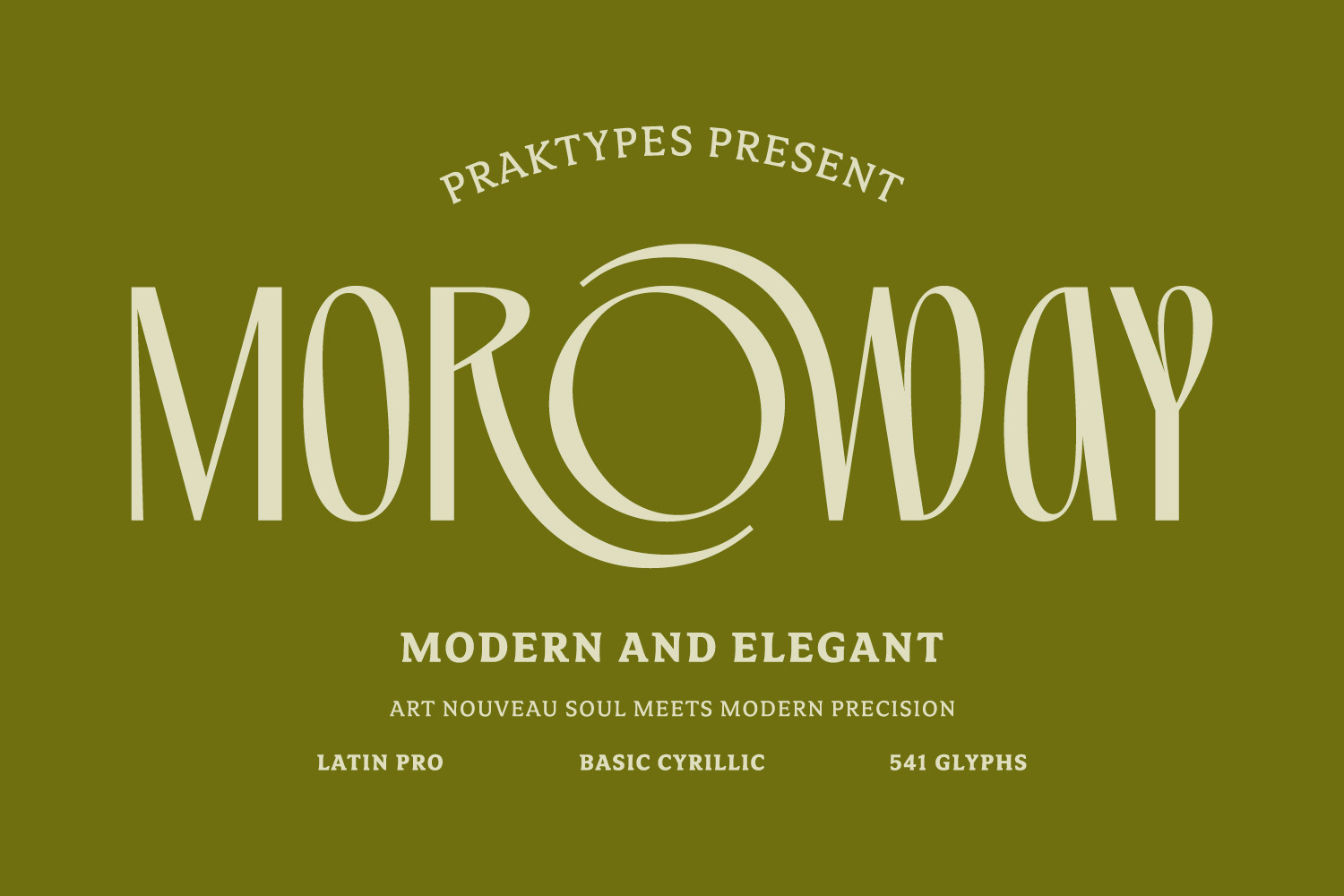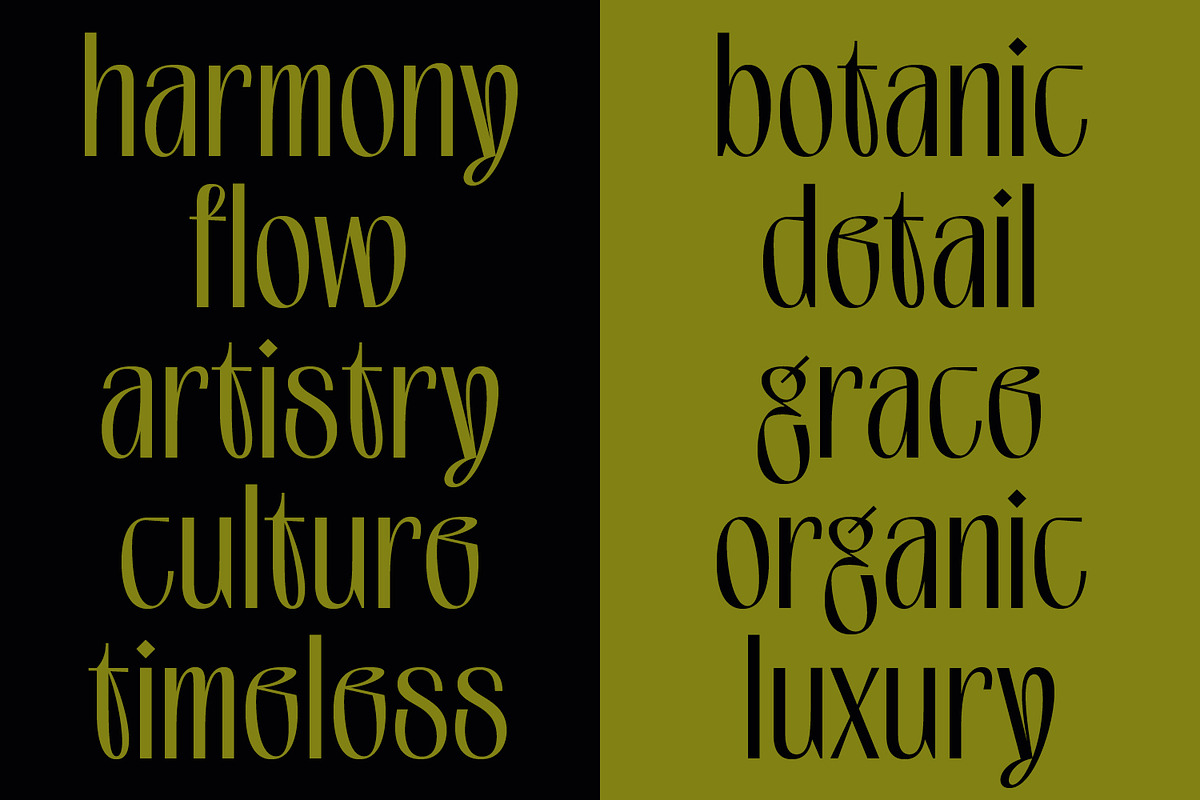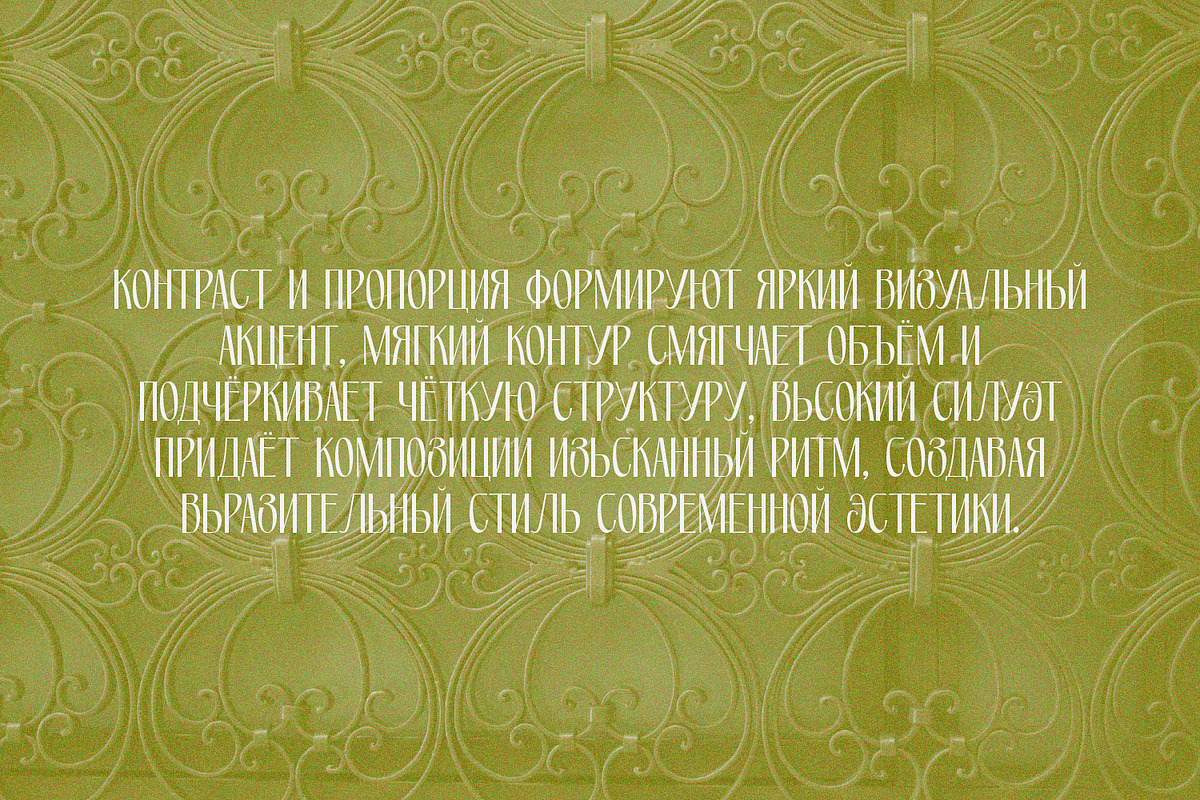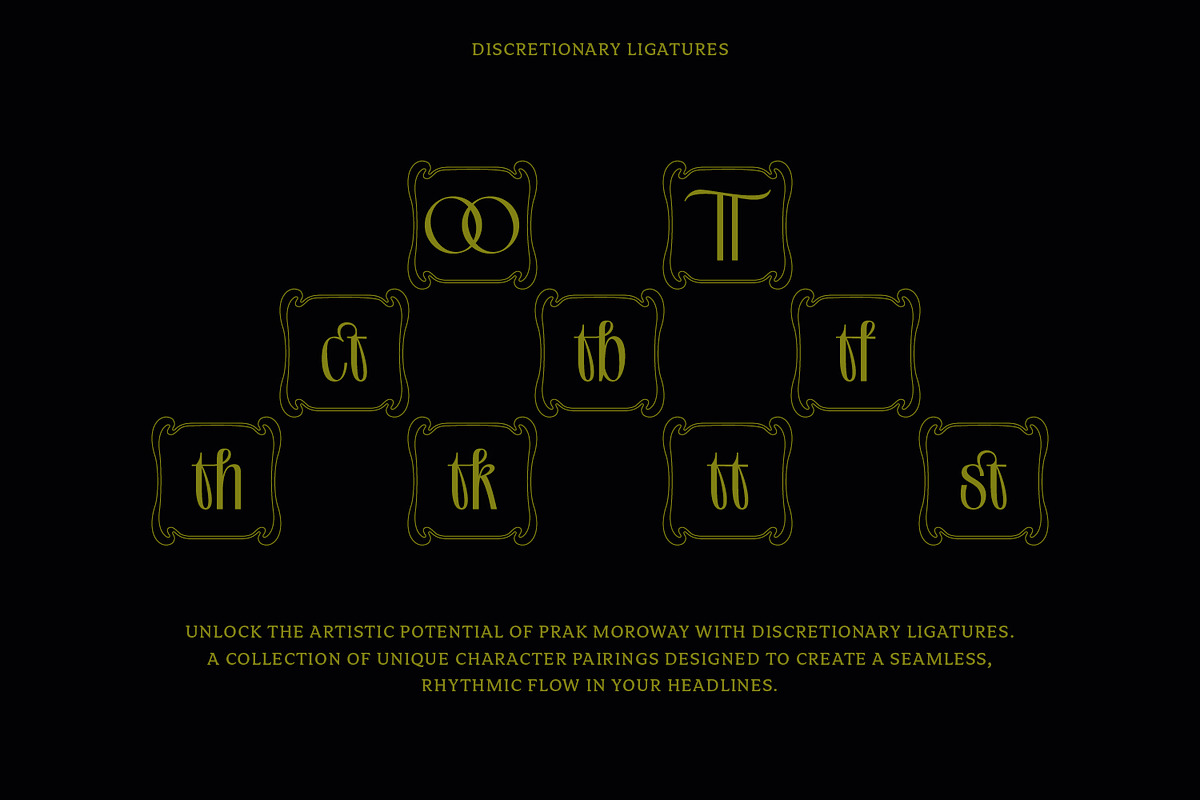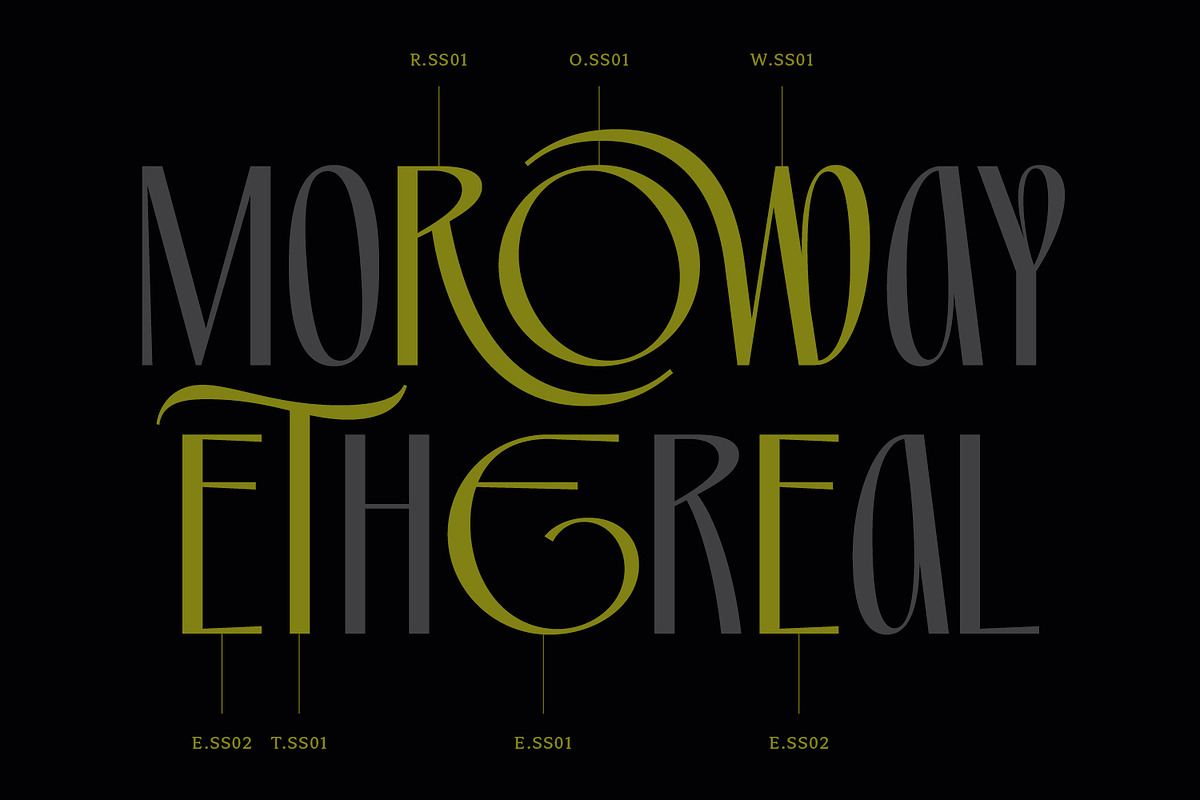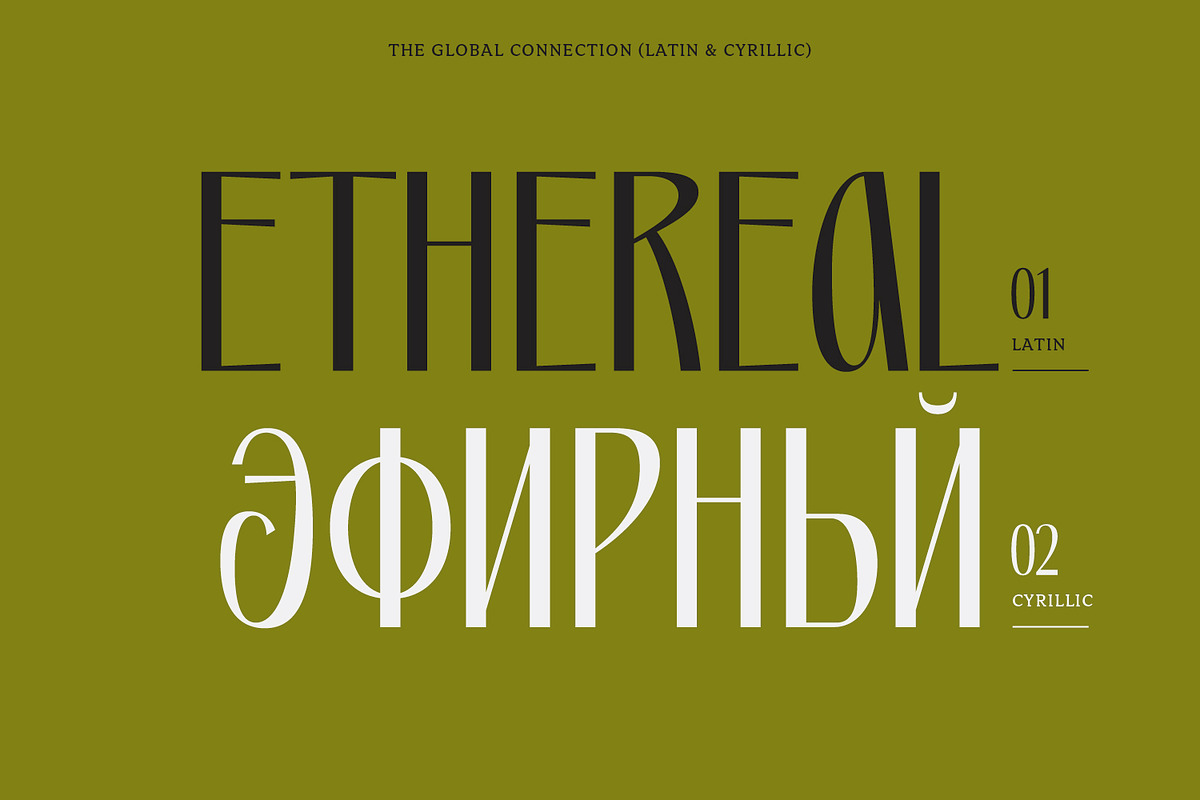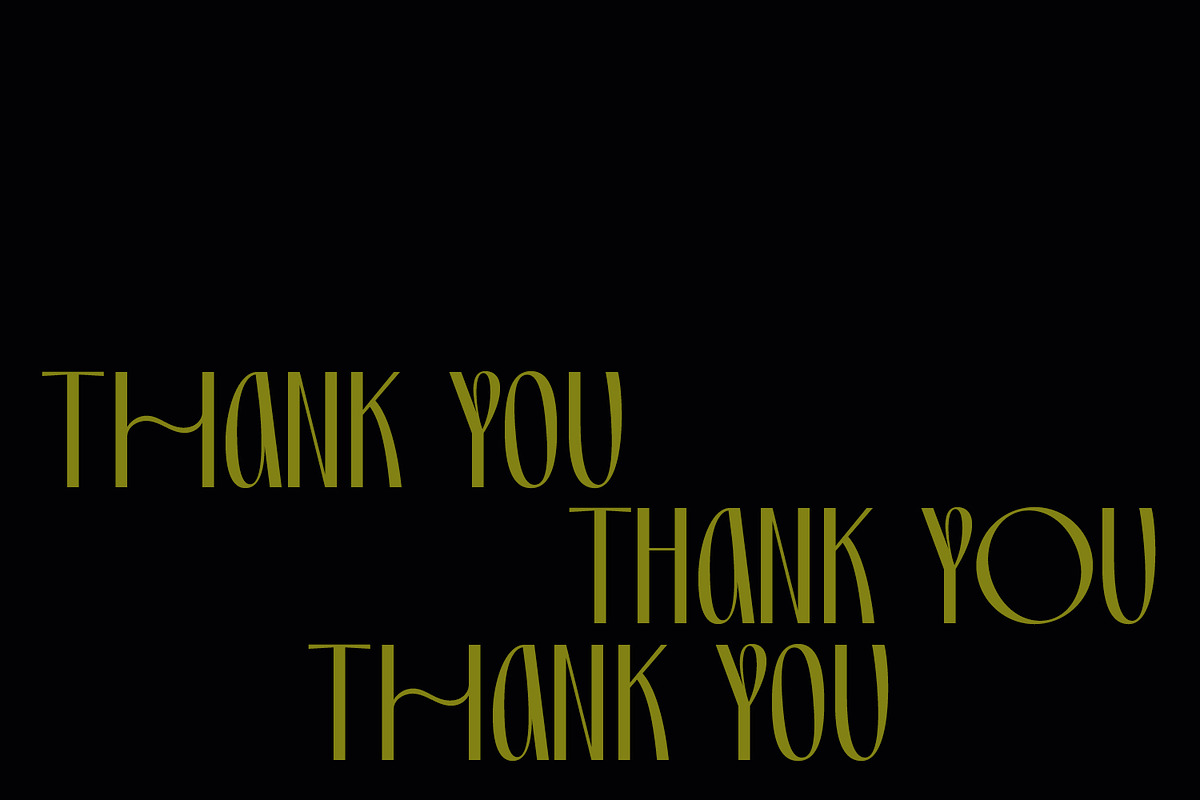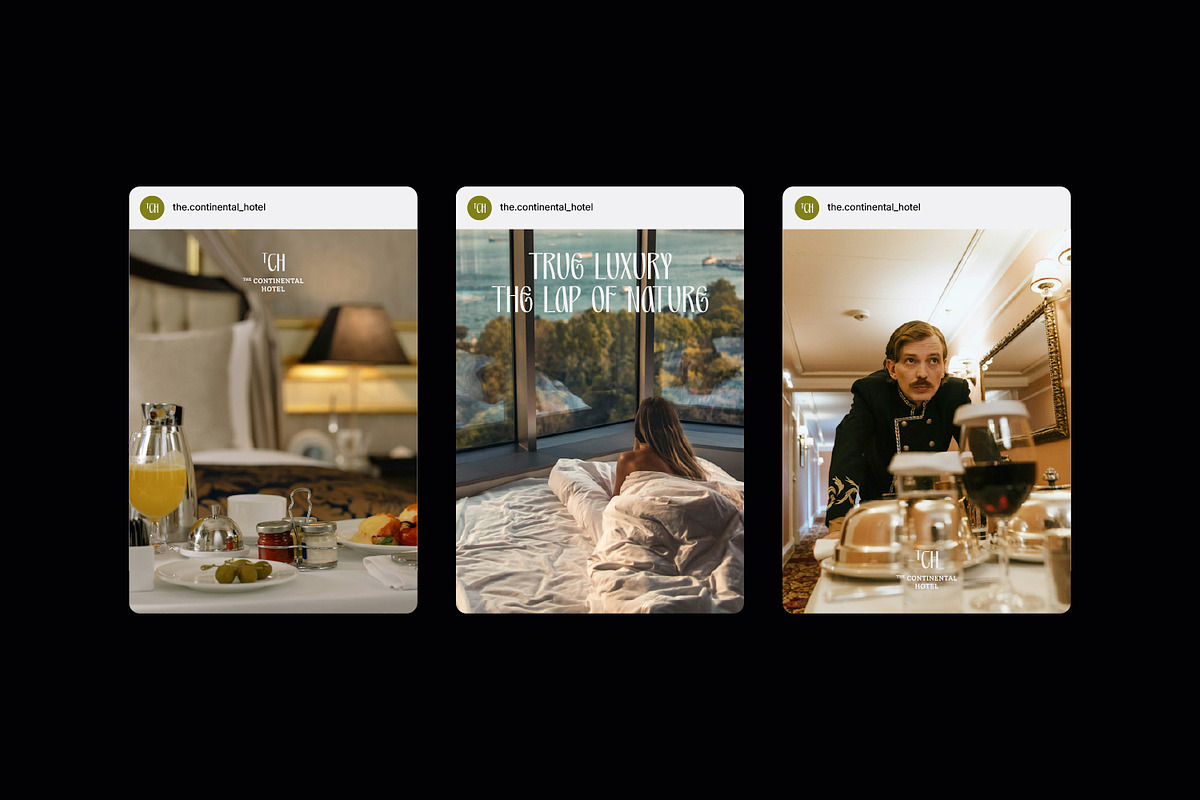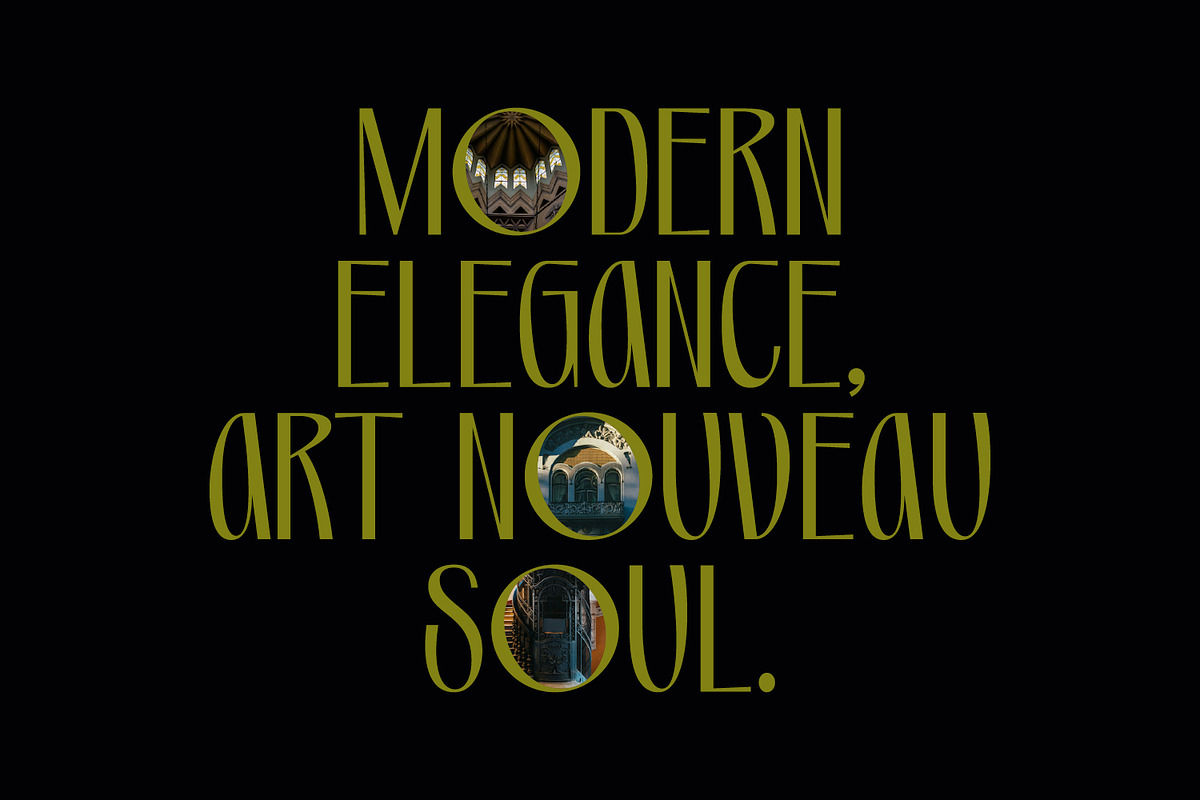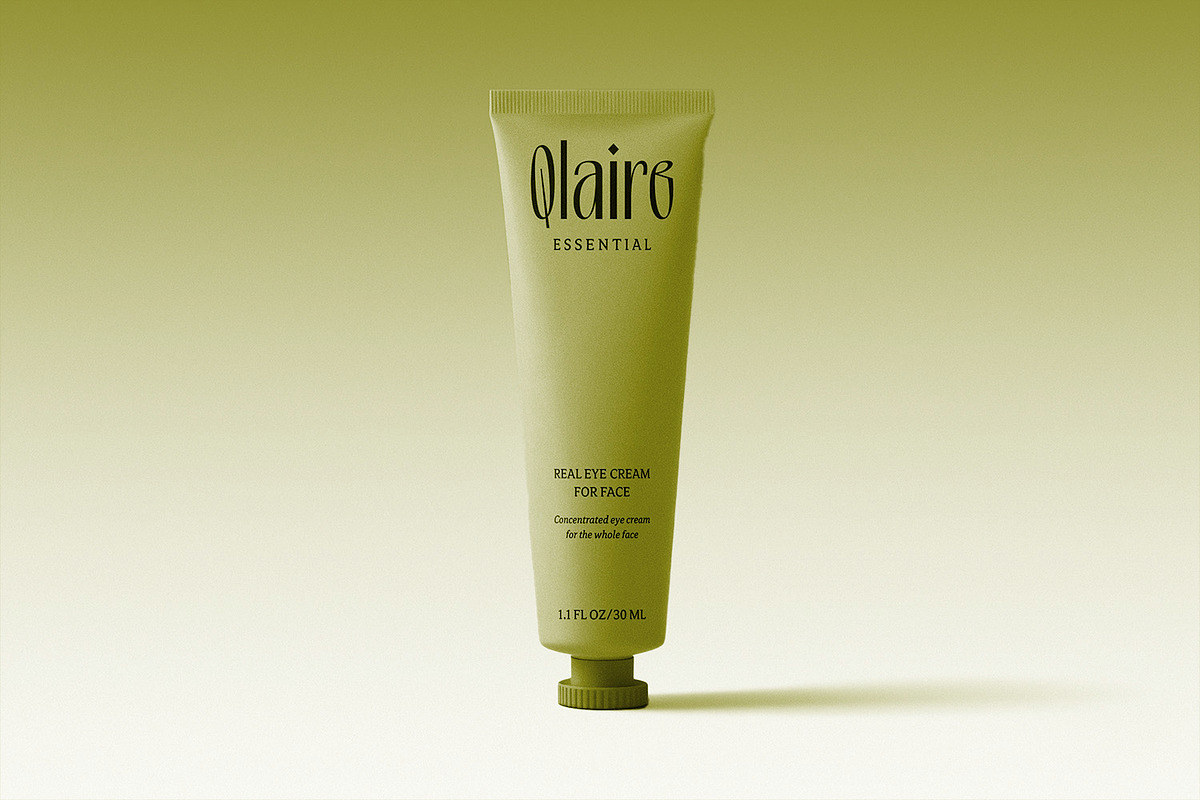
PRAK Moroway - Luxury Display Font
PRAK Moroway is a display font that blends the elegance of classic Art Nouveau lines with sleek modern proportions. The core of this typeface lies in the harmony between sharp thick-and-thin contrasts and naturally flowing organic curves.
Designed to deliver an exclusive and characterful impression, PRAK Moroway is ideal for branding, book titles, artisanal product labels, and editorial designs that prioritize a strong visual aesthetic.
Key Features: Organic Design: Elongated character silhouettes featuring fluid, graceful curves on specific letterforms.
Extensive Language Support: Equipped with Latin Pro and Basic Cyrillic, enabling its use across various European and Slavic languages.
Comprehensive Glyph Collection: Features a total of 541 glyphs, including uppercase, lowercase, numerals, punctuation, and a wide range of accented characters.